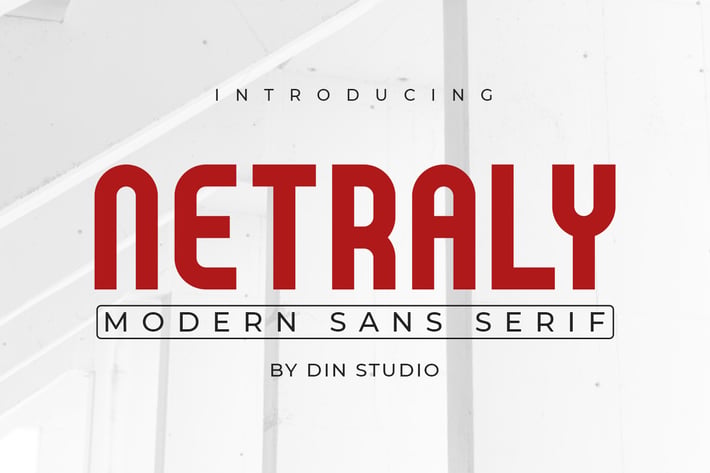
Netraly-Modern Sans Serif Font
Netraly is a modern sans serif font. Made for any professional project branding. It is the best for printing, branding and quotes. Every letter has a unique and beautiful touch.